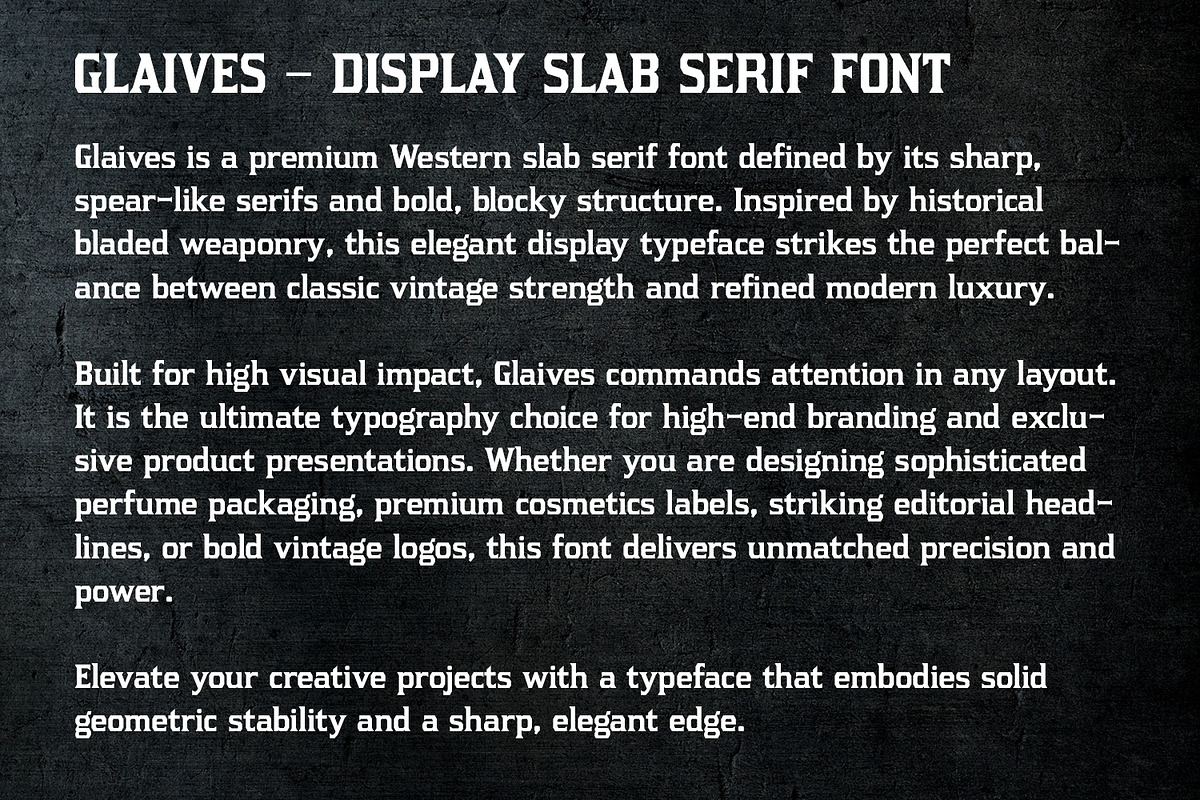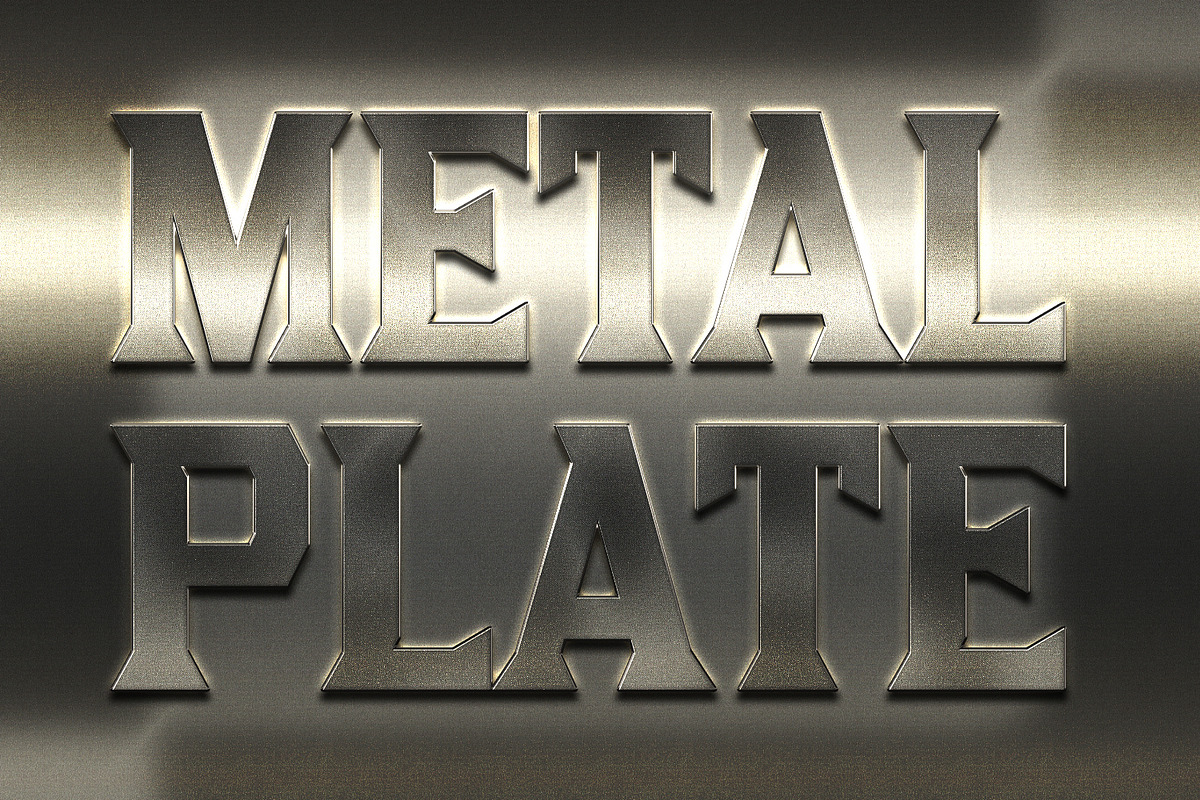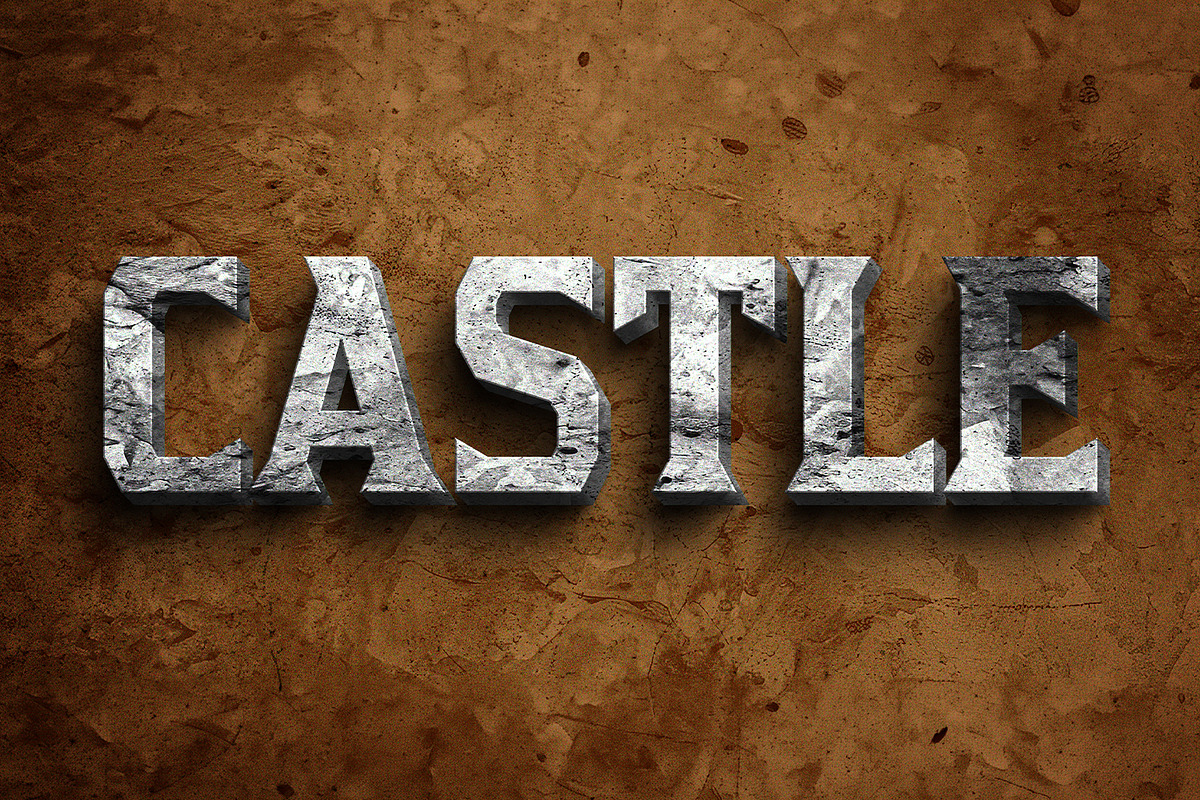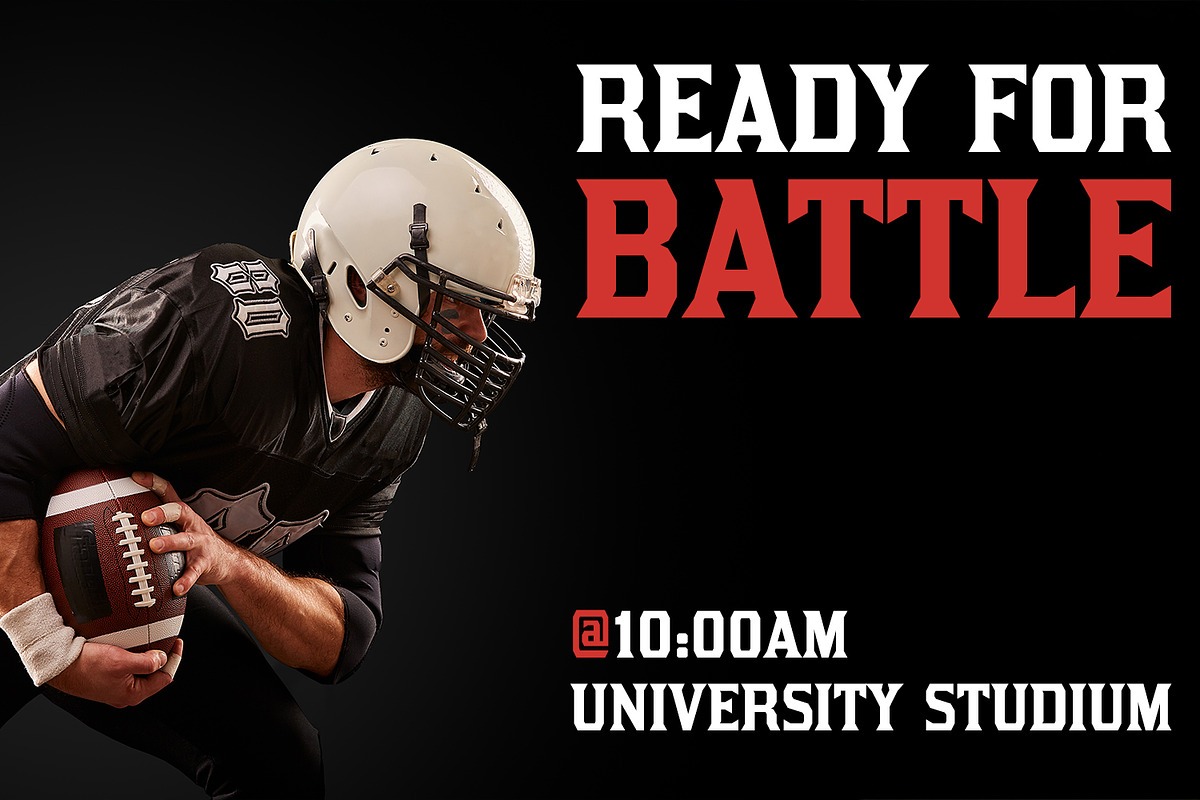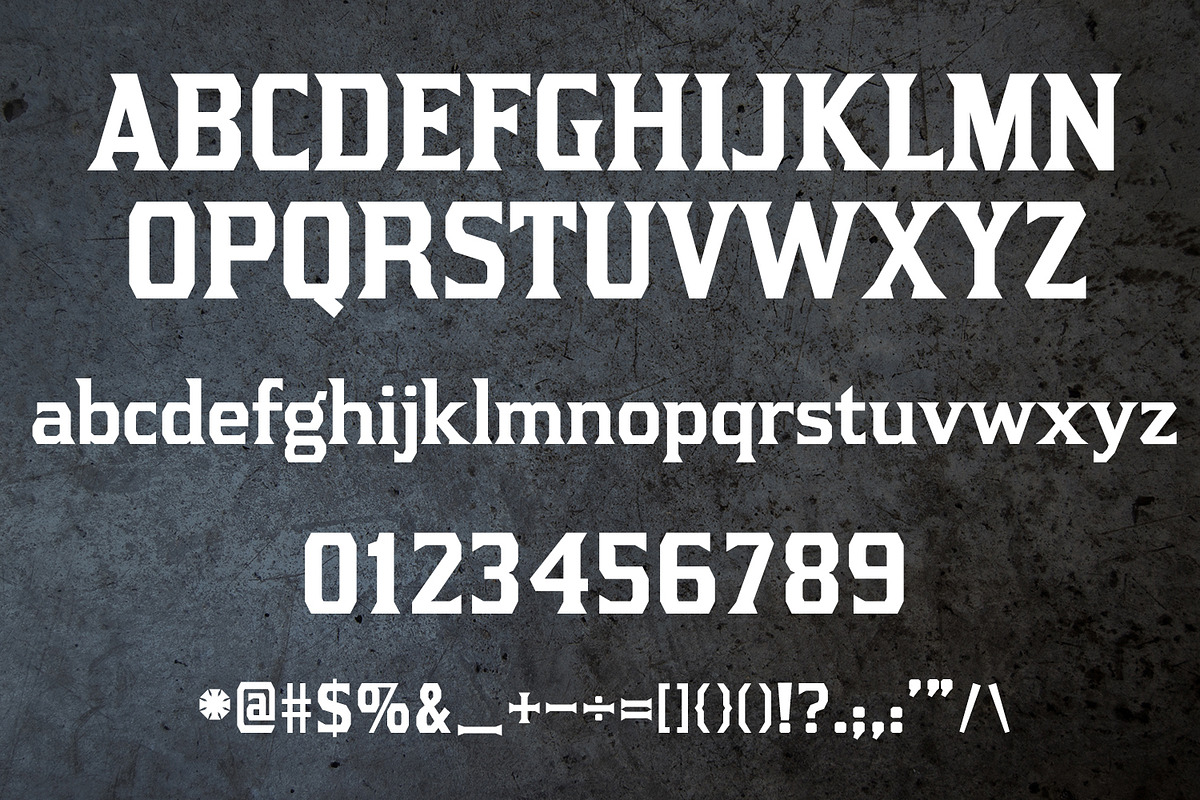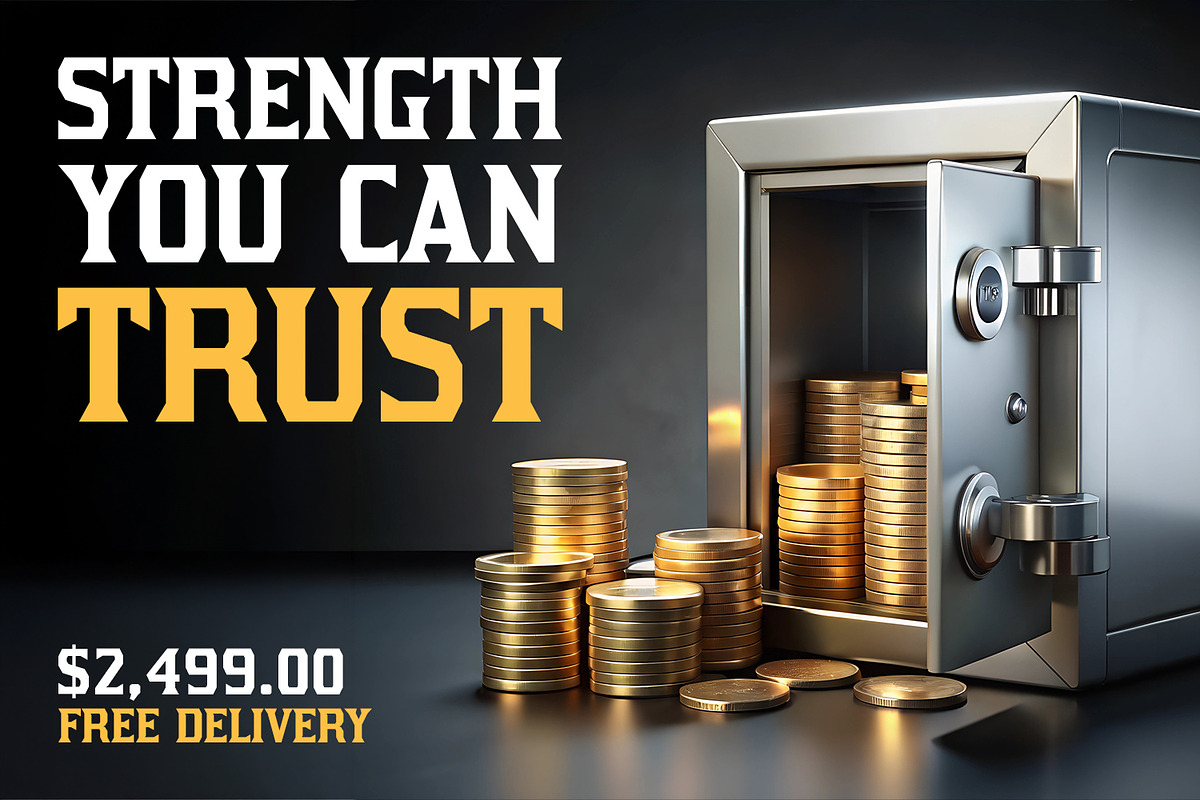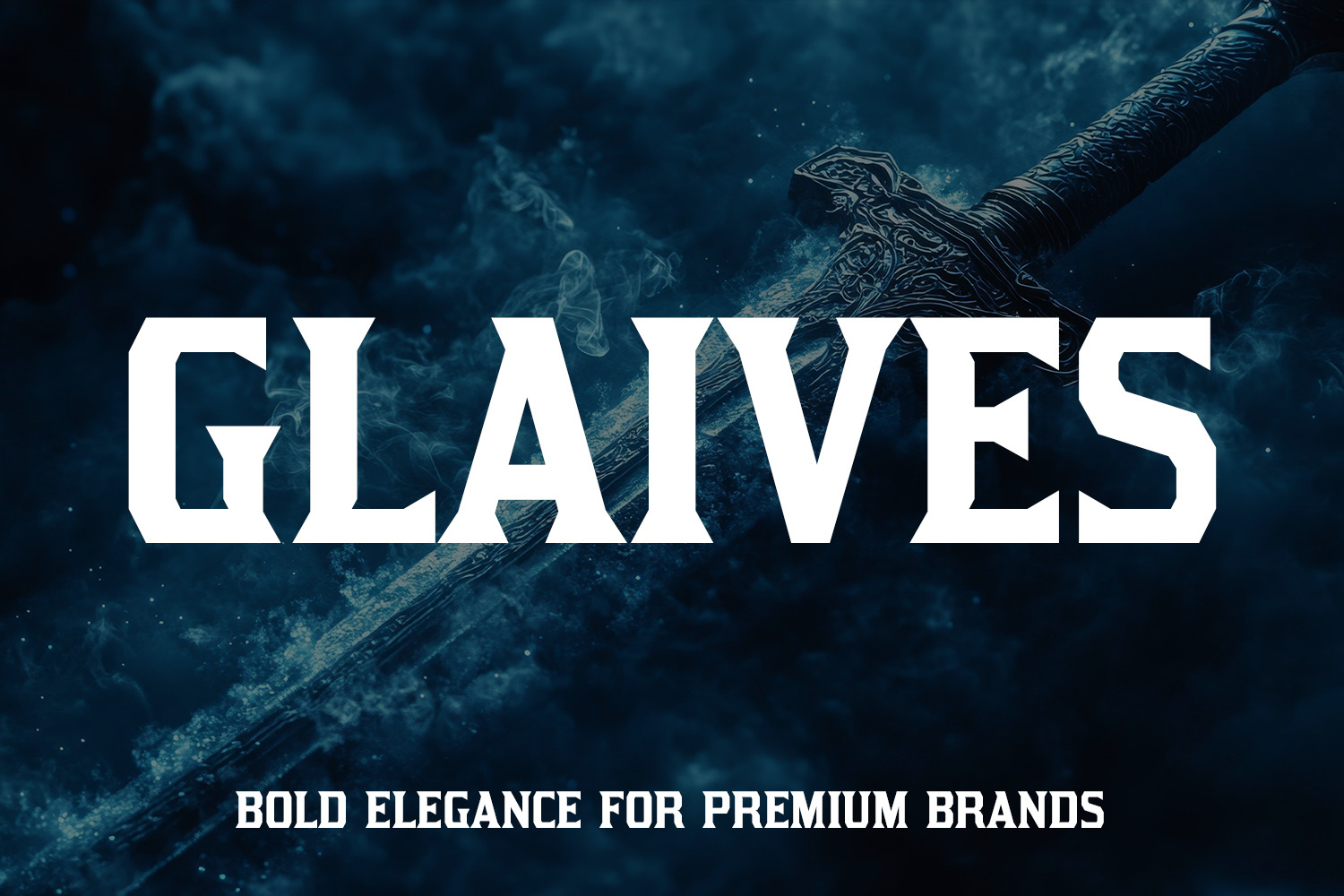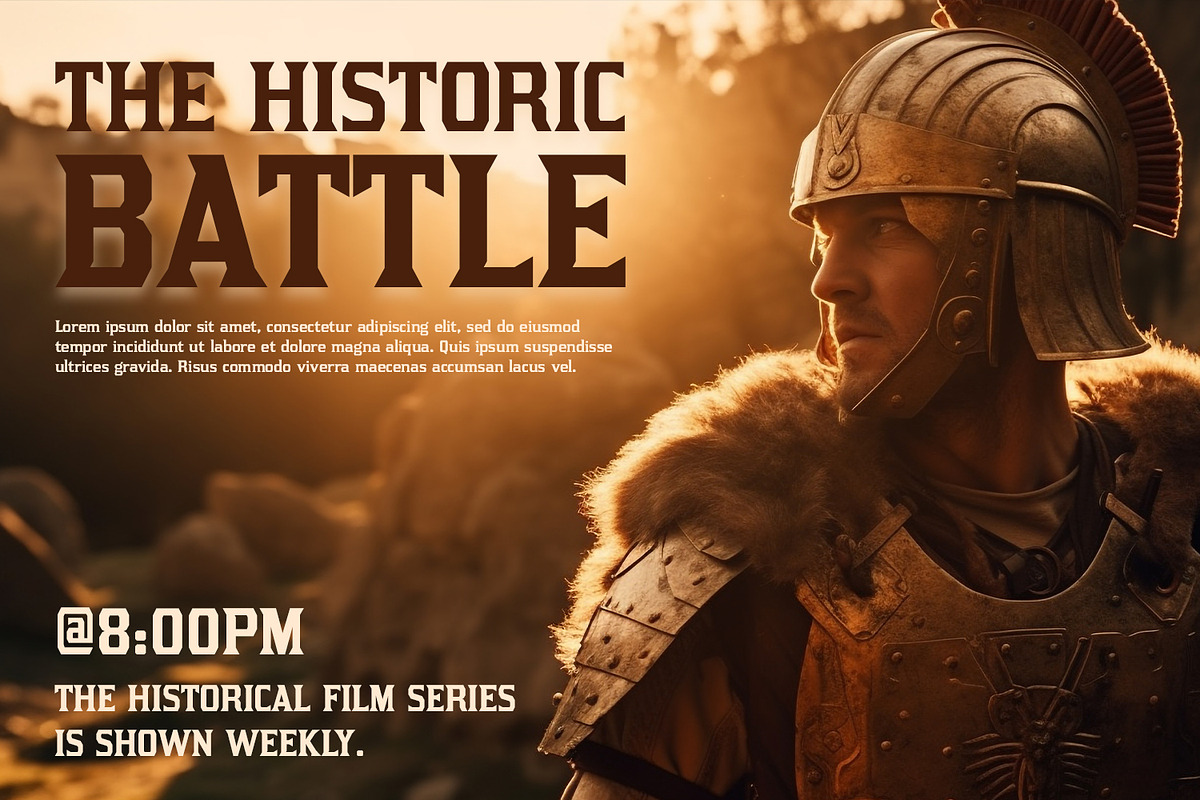
Glaives - Blocky Display Font
Glaives is a premium Western slab serif font defined by its sharp, spear-like serifs and bold, blocky structure. Inspired by historical bladed weaponry, this elegant display typeface strikes the perfect balance between classic vintage strength and refined modern luxury. Built for high visual impact, Glaives commands attention in any layout. It is the ultimate typography choice for high-end branding and exclusive product presentations. Whether you are designing sophisticated perfume packaging, premium cosmetics labels, striking editorial headlines, or bold vintage logos, this high-quality font delivers unmatched precision and power.